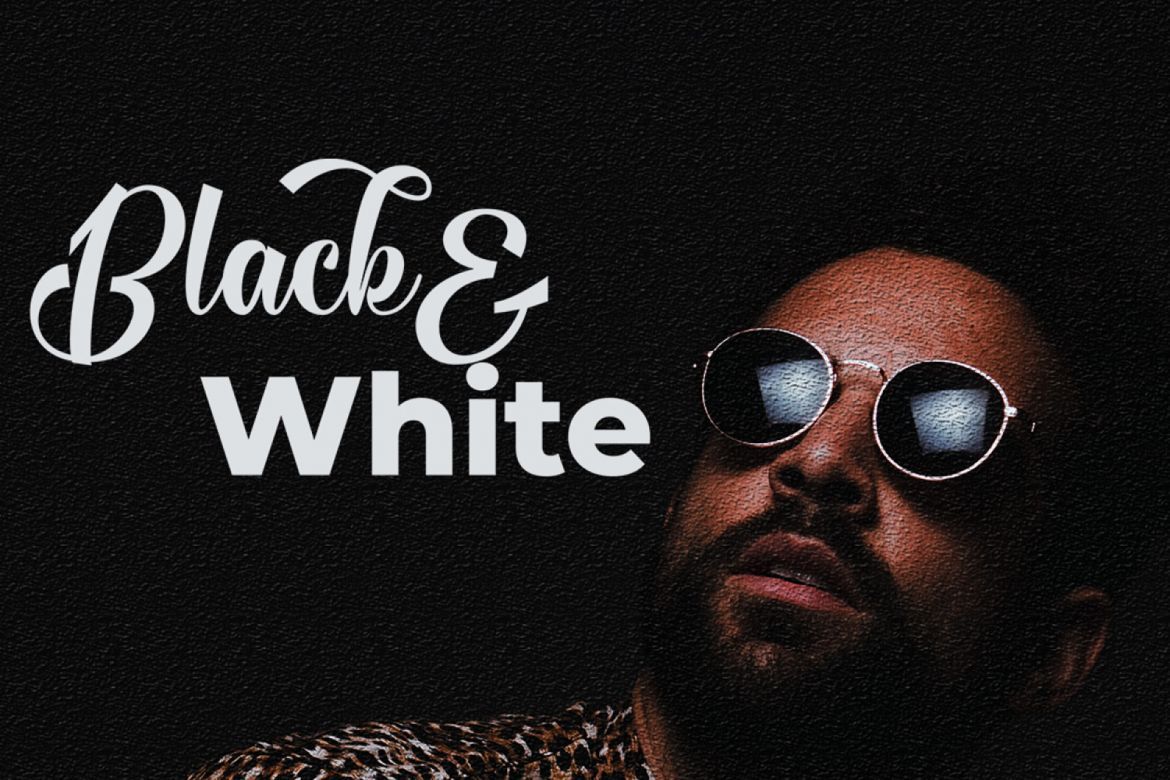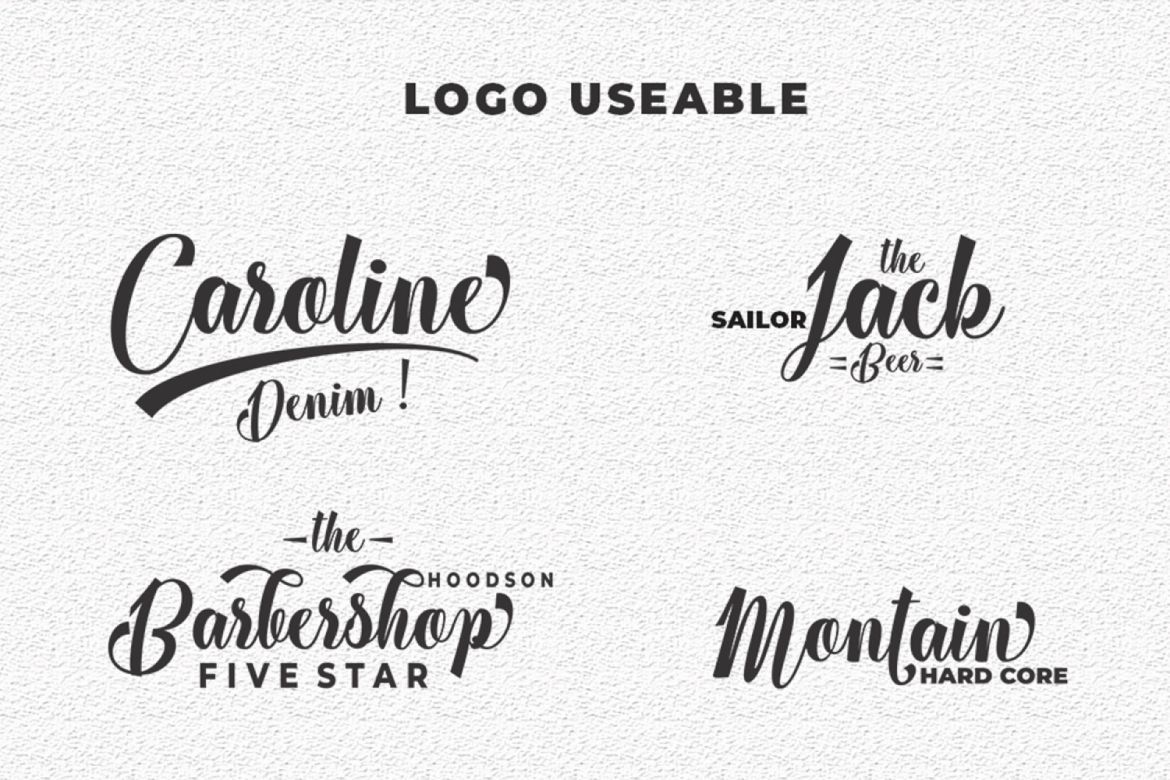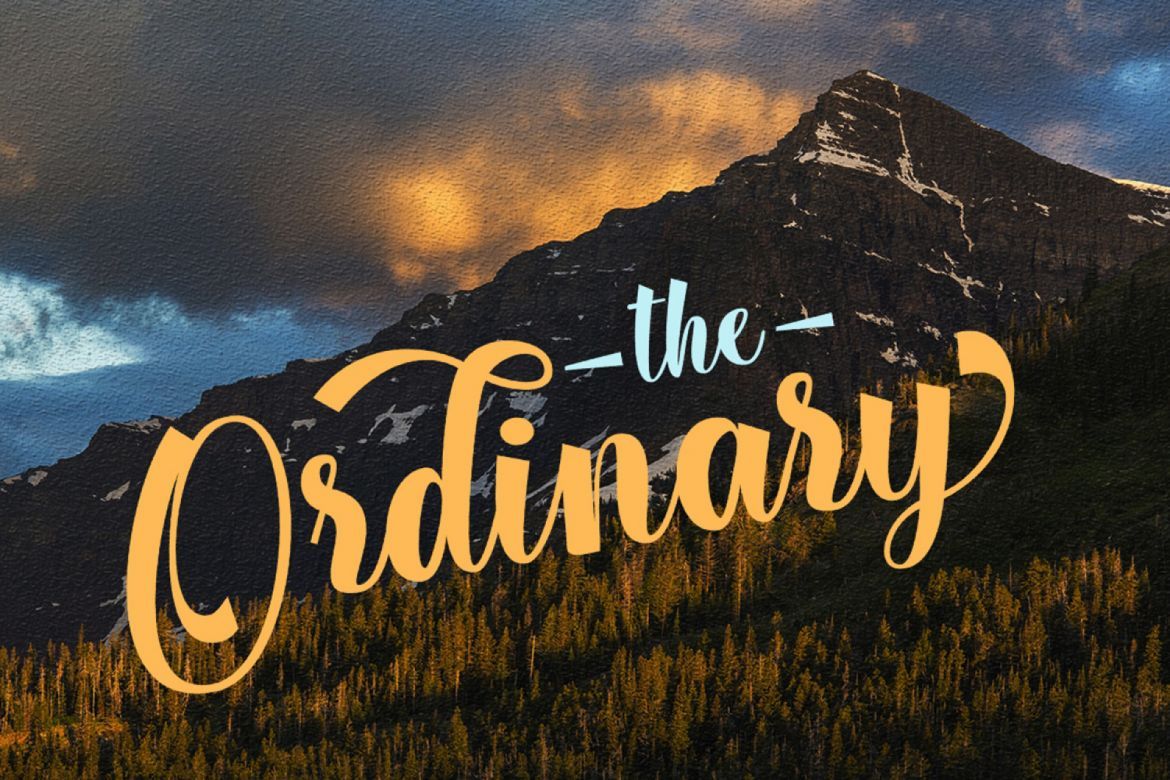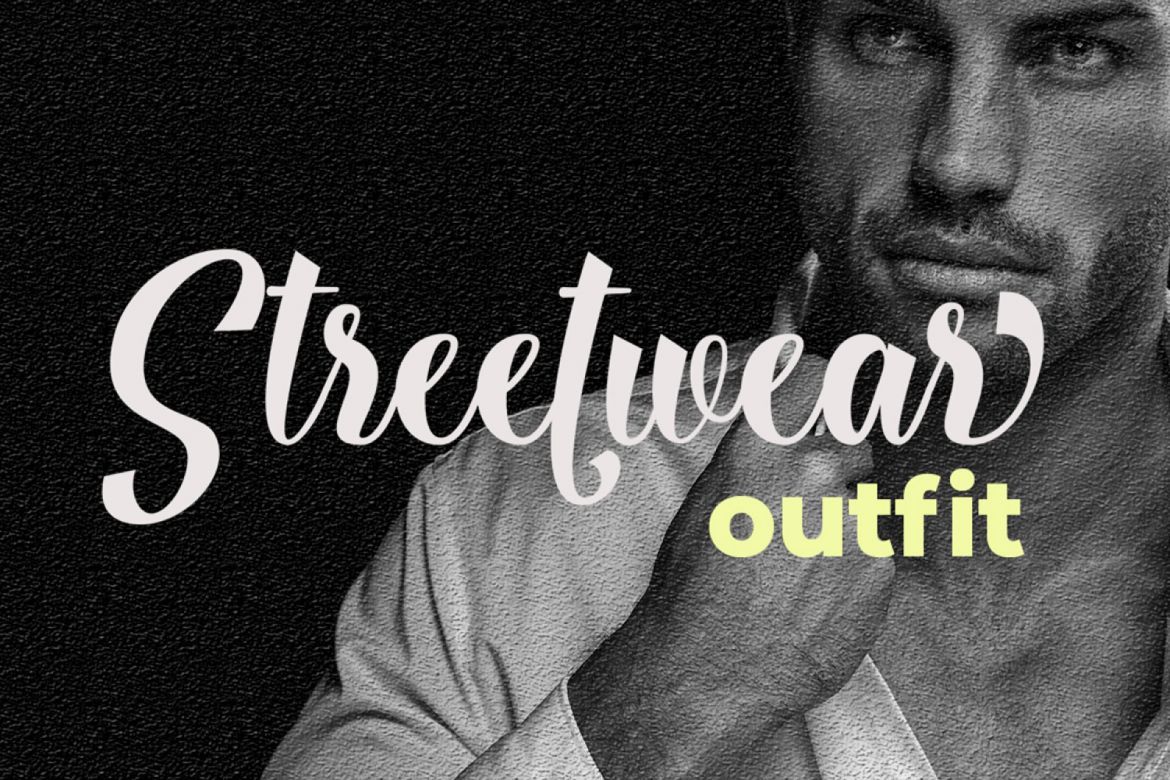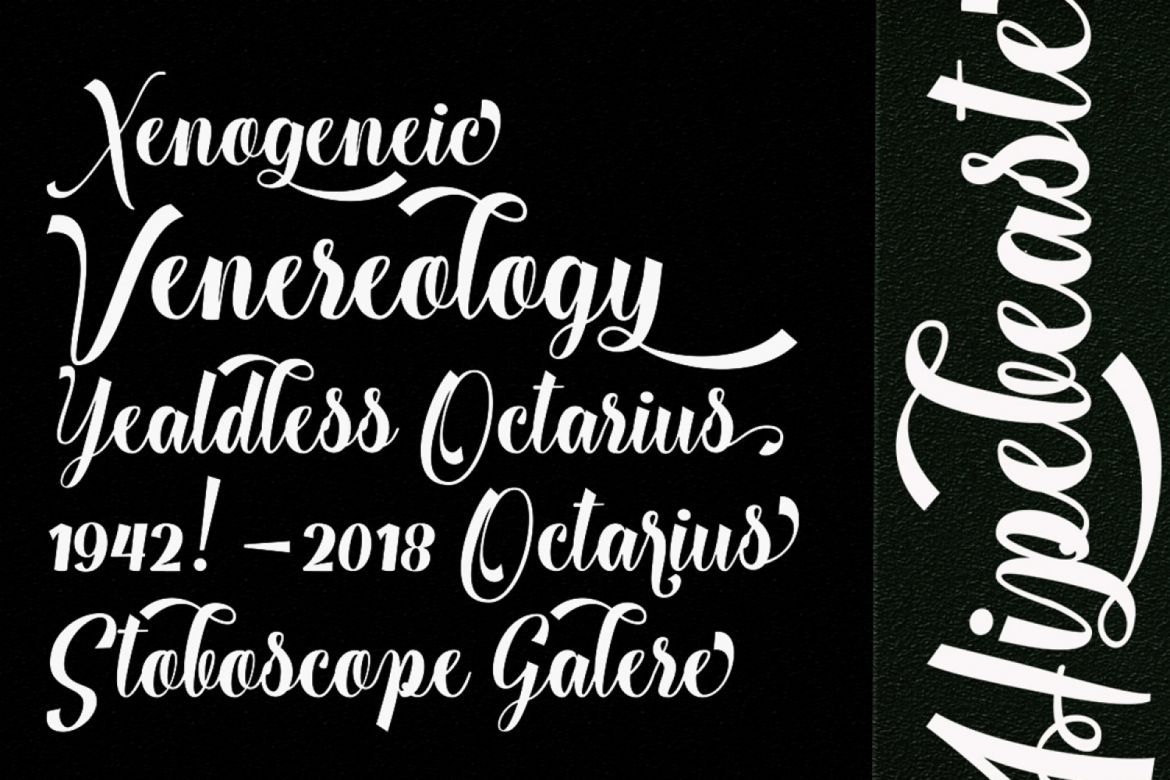
Musche Moulton Font
Musche Moulton Script is a modern calligraphy font, with characters dance along the baseline and elegant touch. Opentype features with stylistic alternates, ligatures and multiple language support. Can be used for various purposes.such as logos, wedding invitation, heading, t-shirt, letterhead, signage, lable, news, posters, badges etc. To enable the OpenType Stylistic alternates, you need a program that supports OpenType features such as Adobe Illustrator CS, Adobe Indesign & CorelDraw X6-X7, Microsoft Word 2010 or later versions.